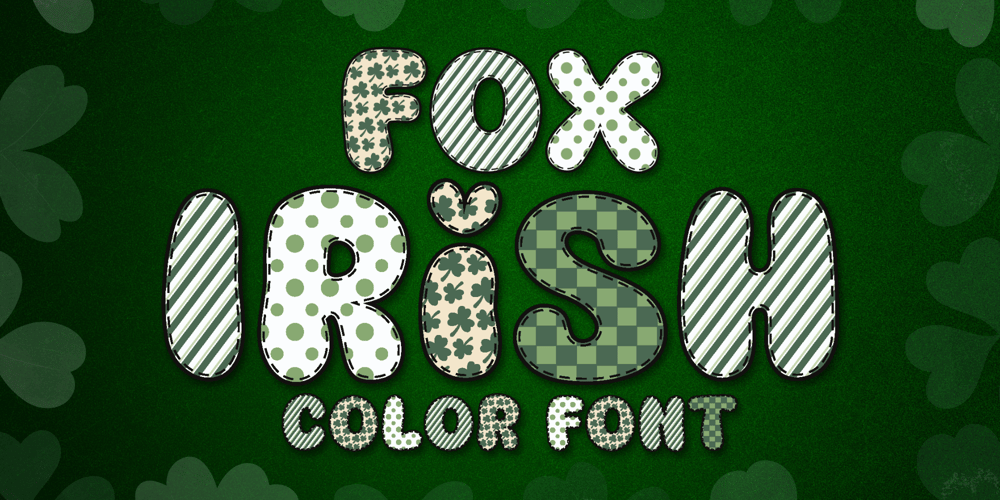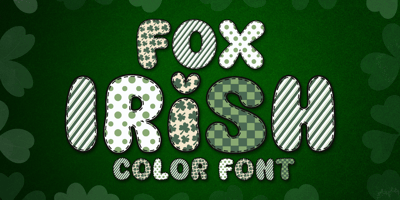
Fox Irish Font Family was designed by Rattana Rattanawan and published by Fox7. Fox Irish contains 1 styles and family package options. Discover the charm of Fox Irish, an enchantingly delightful color font. Perfectly capturing the spirit of the Saint Patrick’s Festival, this font is designed to sprinkle a playful Irish spirit on your designs. Its authentic feel makes it an ideal option for crafting stunning invitations, artistic stationery, engaging social media posts, or heartfelt greeting cards. Succumb to the allure of Fox Irish and infuse your projects with an irresistible Irish flair!๐บ๐บ Please note that the Canva do not support color fonts! ๐บ๐บ